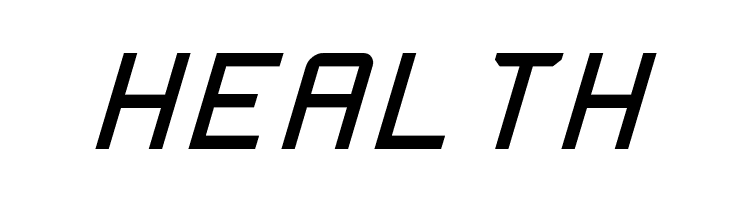
Stamping Nico Font
A rustic, handcrafted font with a vintage letterpress style.
Behind Font
Font by Inermedia Studio
A playful and whimsical handwritten font with fluid strokes and expressive characters.
SANDRE-Regular Font
Font by http://www.be.net/tanoveron
A modern, geometric font with bold, striped patterns and angular forms.
Code Next-Trial Light Font
A modern, geometric sans-serif font with a clean and balanced design.
OPTILignier-Caps Font
A bold, dynamic font with modern and classic elements, featuring sharp angles and smooth curves.
Happy Pappy Font
A playful, informal handwritten font with irregular strokes and a whimsical style.
Einzine Font
A modern, geometric sans-serif font with a clean and professional look.
Pet Me 128 2Y Font
Font by Kreative Korporation - www.kreativekorp.com
A pixelated, retro-style font with a blocky, digital appearance.
Jacek Zieba-Jasinski Bold Italic Font
A bold, italic handwritten font with fluid, cursive strokes.
Swagmasta Font
A bold, expressive handwritten font with thick strokes and a playful style.
Code Next-Trial Black Font
A bold, modern font with thick strokes and strong presence.
Goodie Bag DEMO Regular Font
InermediaSTUDIO
A playful, handwritten-style font with rounded edges and a quirky design.
Gurindam Tebal Font
Bold, geometric font with a modern and striking appearance.
io Font
A geometric, modular font with blocky, angular letterforms and consistent stroke width.
No other name Font
A playful, bold handwritten font with a casual and friendly style.
Tofu Font
A bold, angular font with a striking and dynamic appearance.
Komikaze Font
Font by Apostrophic Lab
A playful, bold font with rounded edges and a modern, whimsical style.
Robodatch Font
A bold, robotic-themed font with geometric shapes and a playful style.
Roundel Font